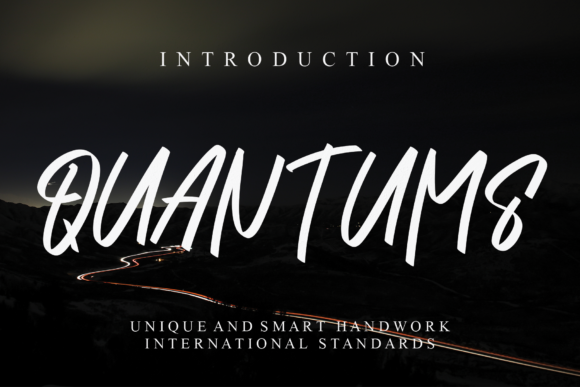
Immerse yourself in the world of elegance and creativity with Quantums Font, a captivating handwritten script font that will transform your designs into masterpieces. Designed with a touch of playfulness and a sprinkle of charm, Quantums is the perfect font to add a personal touch to your projects.
Step into a world of endless possibilities, where you can unleash your imagination and create designs that speak volumes. Whether you're a seasoned designer or just starting out, Quantums is the perfect font to elevate your designs and make them stand out from the crowd.
With its graceful curves and authentic handwritten feel, Quantums is the epitome of sophistication and charm. It effortlessly captures the essence of handwritten notes, adding a touch of warmth and intimacy to your designs. Whether you're creating wedding invitations, greeting cards, social media posts, or any other creative project, Quantums will add a touch of magic that will leave your audience spellbound.